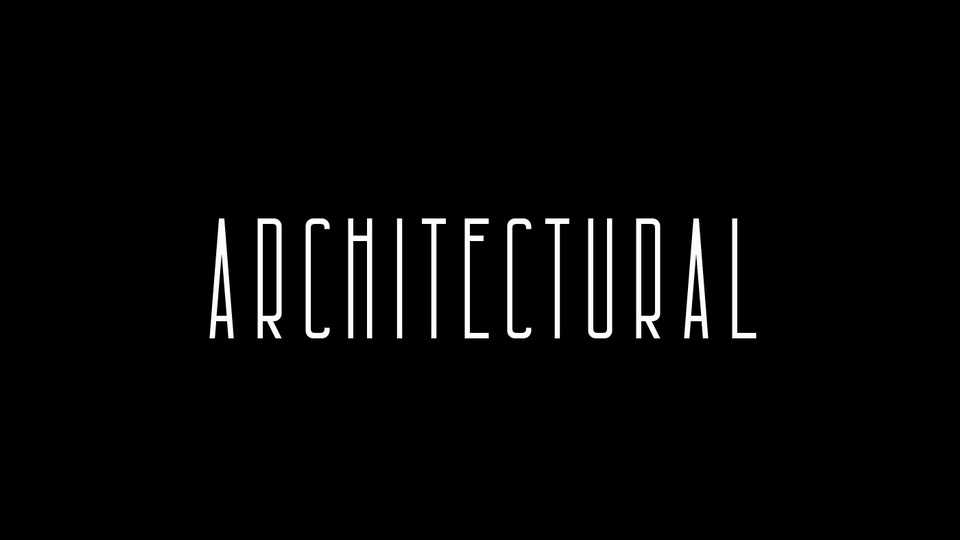
Download Architectural font, a condensed display typeface that contains strict proportions and planned geometry. Architectural font is suitable for headings and small passages of text.
Designer: Igor Stepanchenko